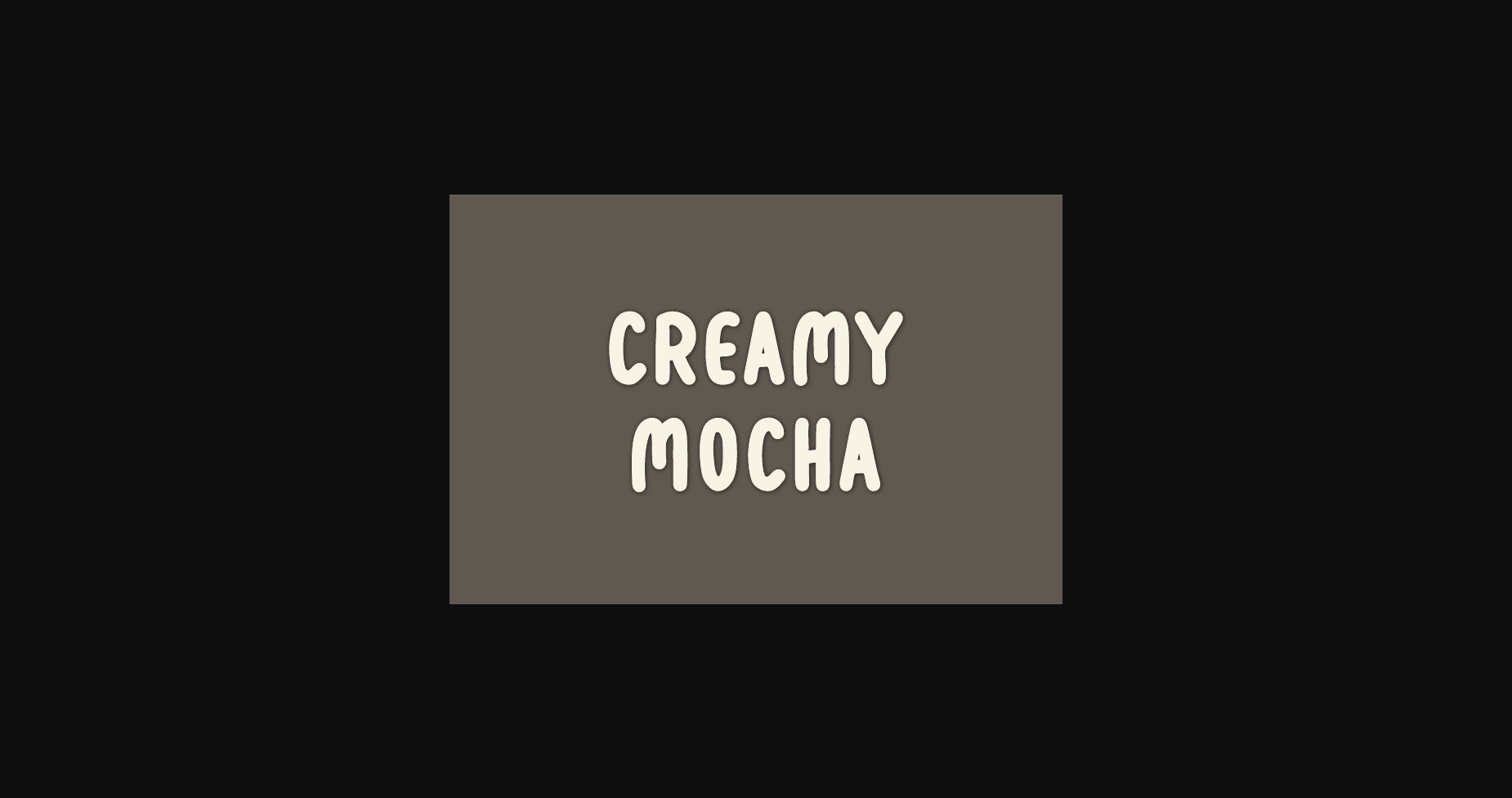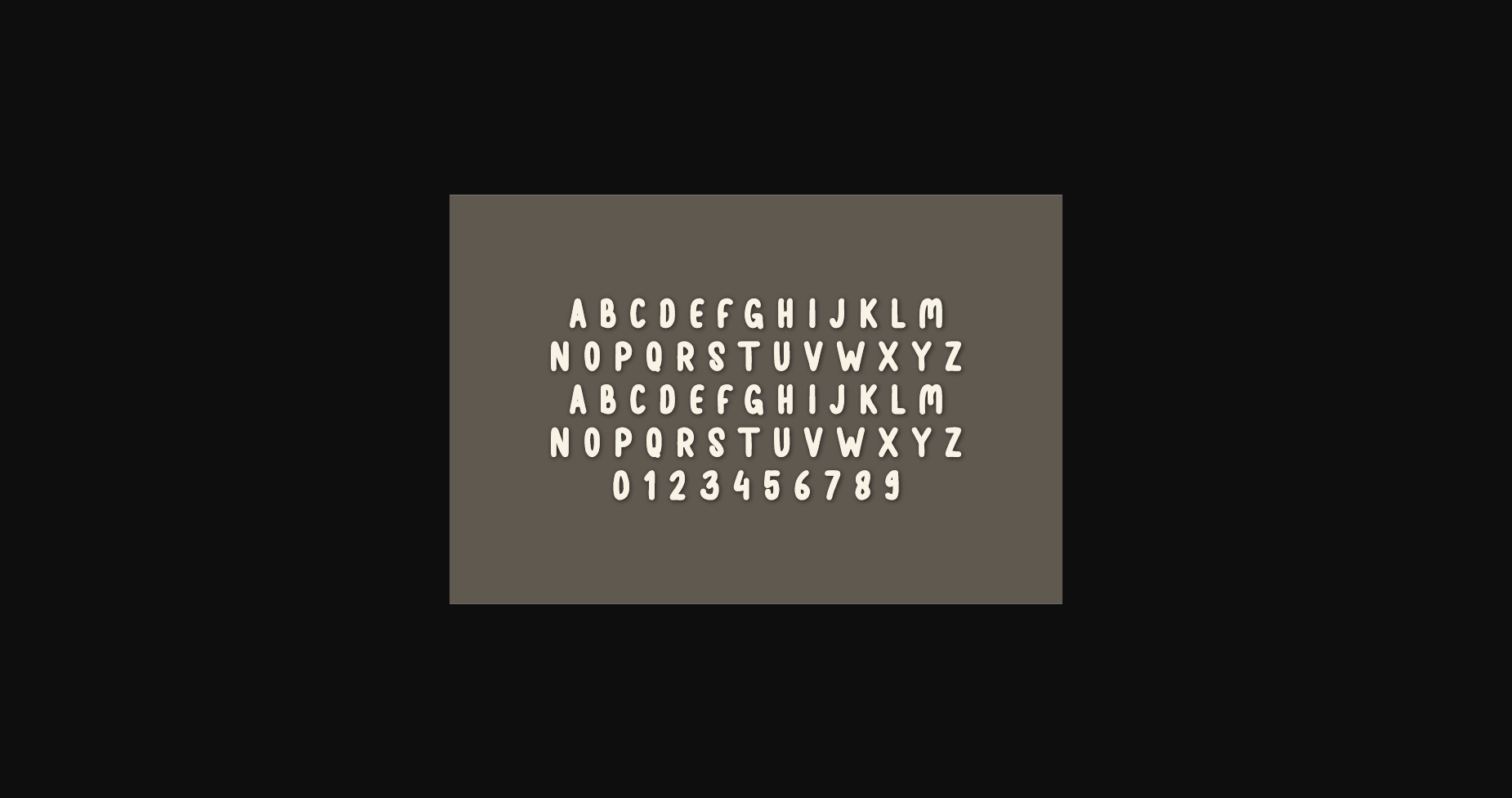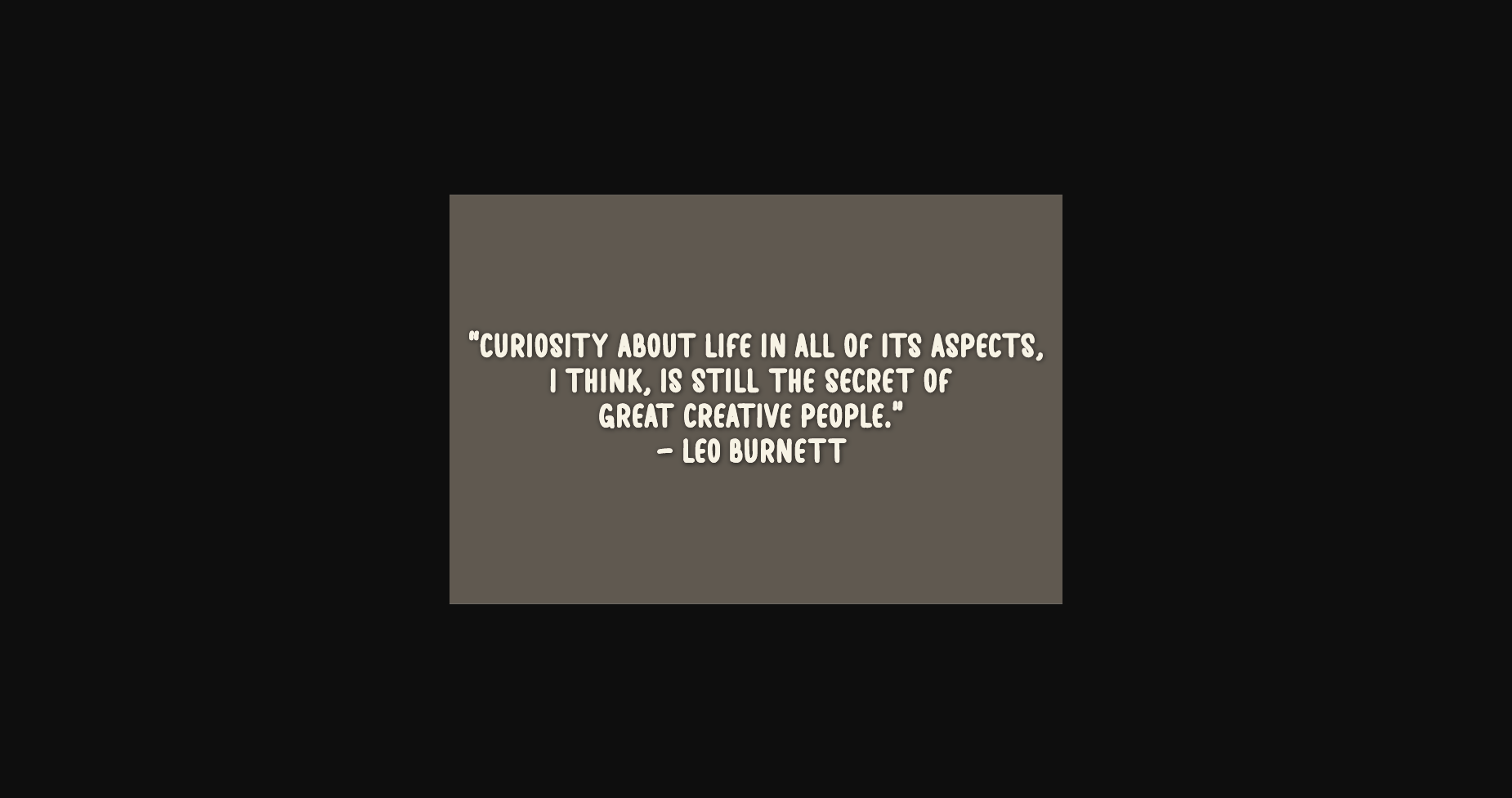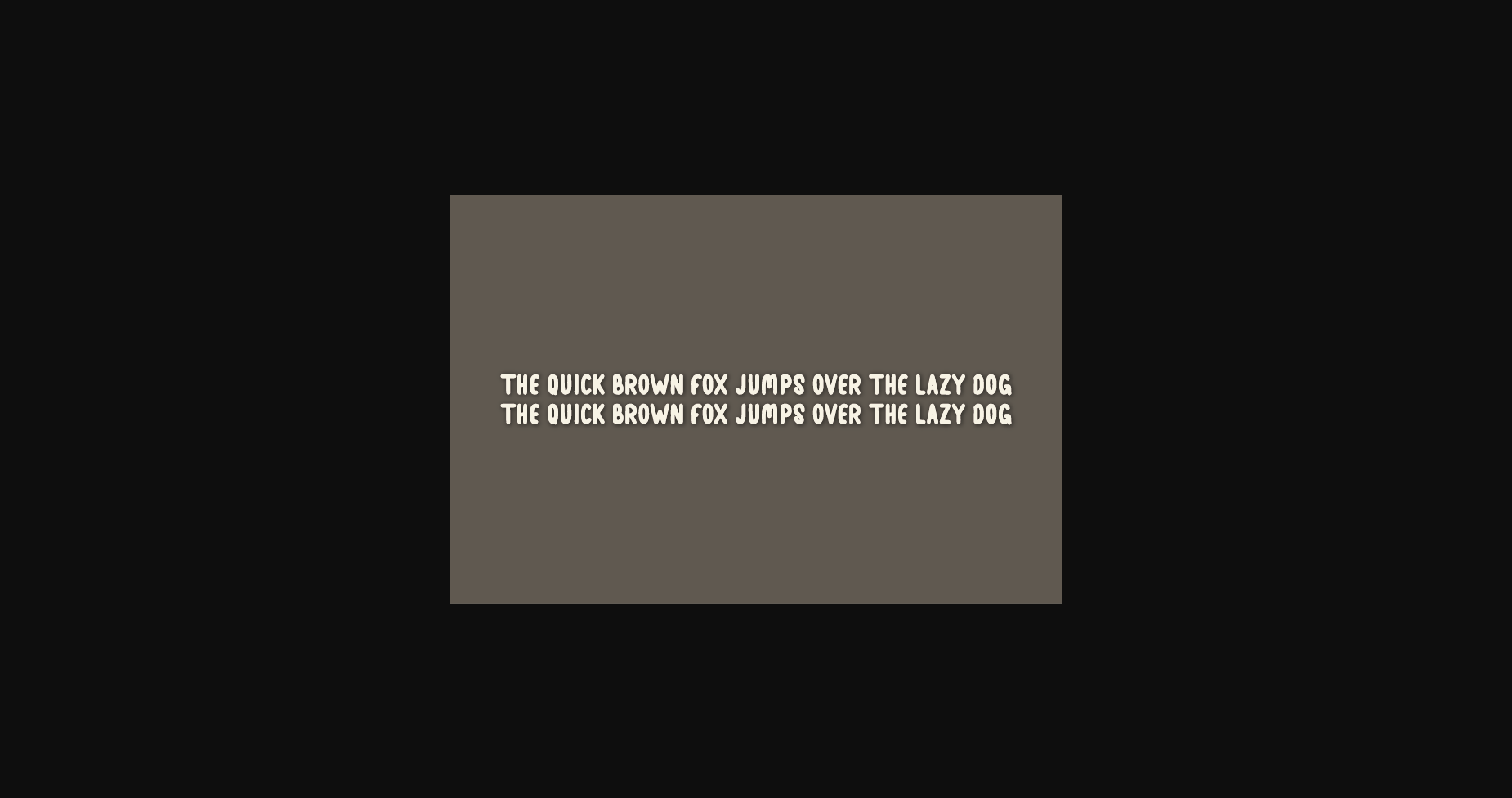
Creamy Mocha Font
About Creamy Mocha Font
Creamy Mocha is a natural sans serif font made without changing a single node in each character’s indentation. This makes this font very interesting and unique. Perfect for quotes, notes, tees, and any product design.